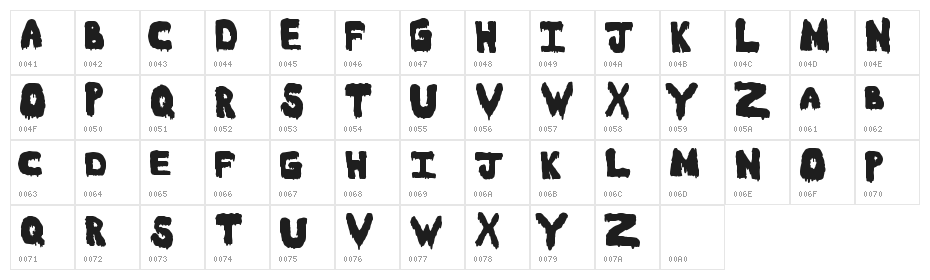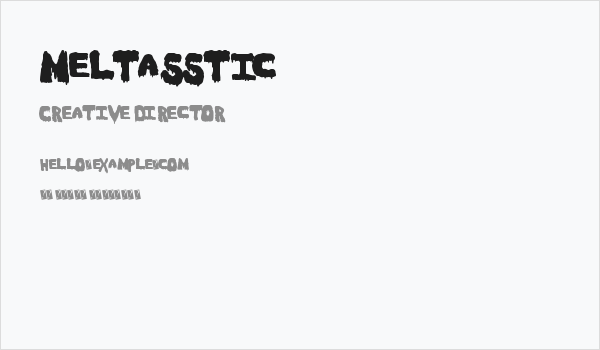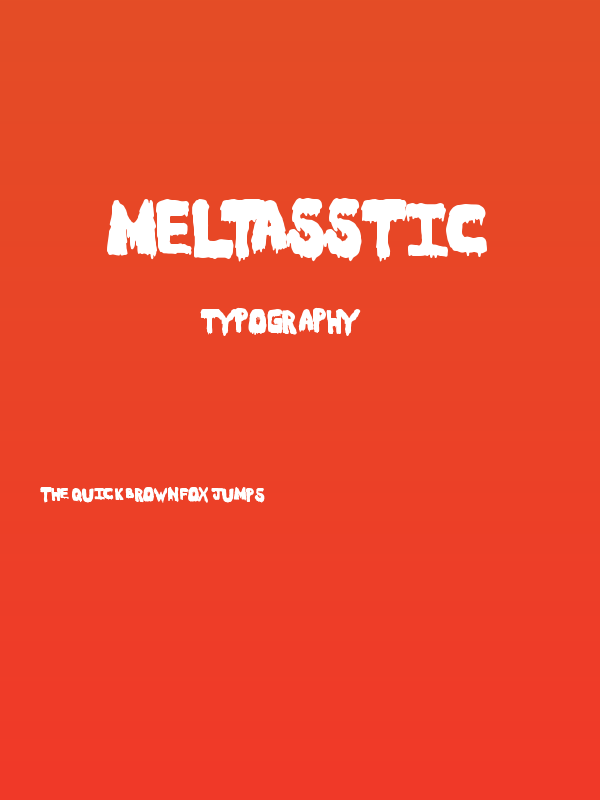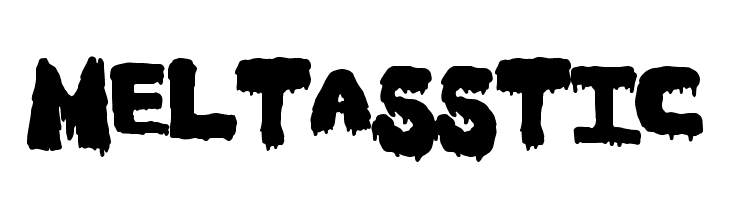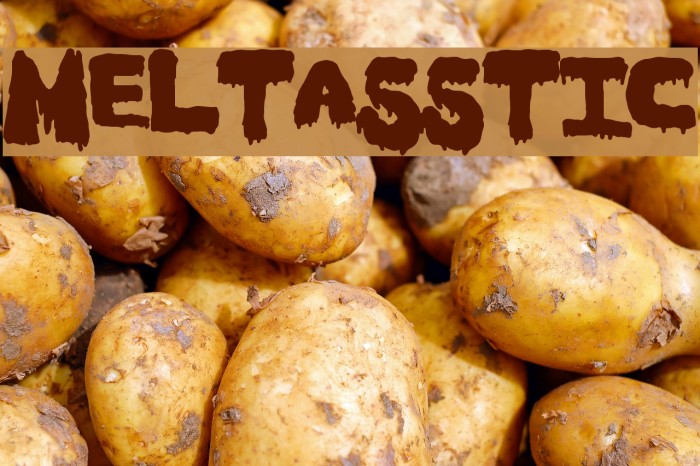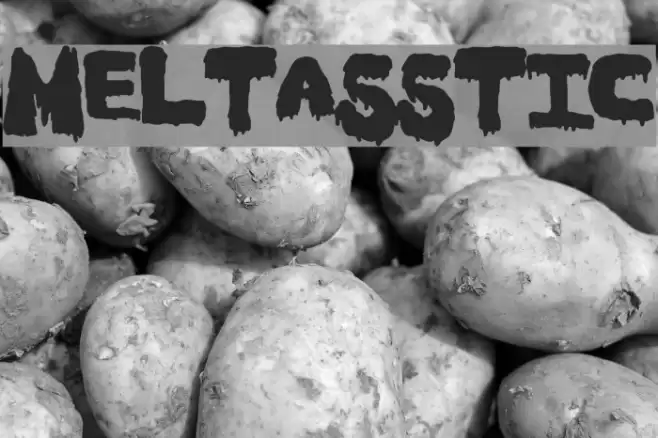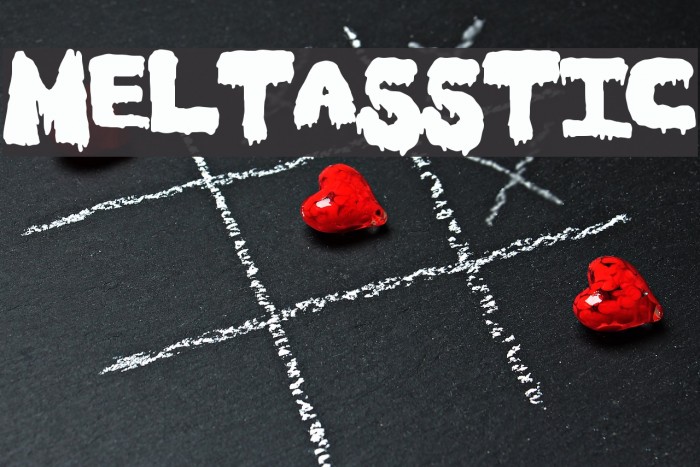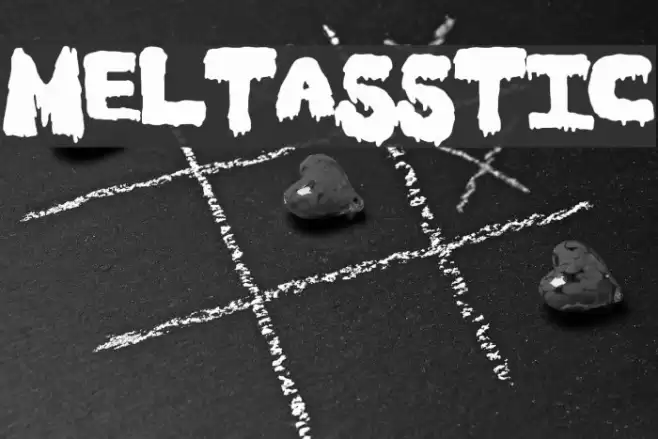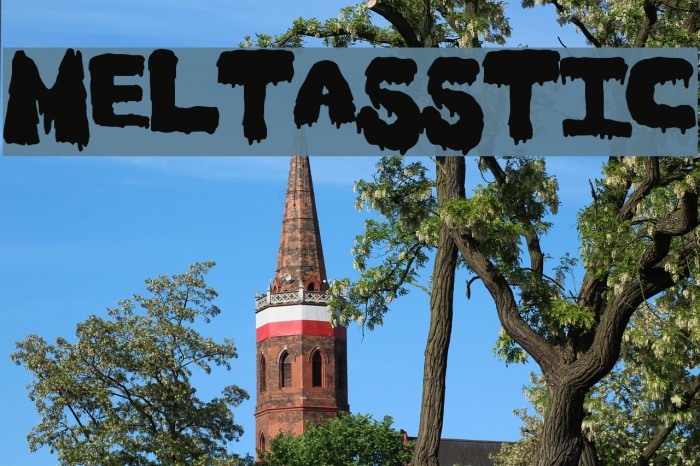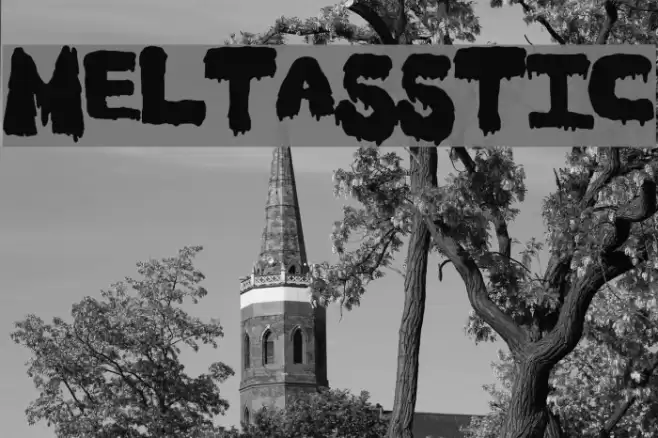
Meltasstic Font
| Caz de utilizare | Headlines, Posters, Logos |
| Proiecte propuse | Ideal for Halloween-themed graphics, horror movie posters, edgy branding, or any project needing a dramatic and unique typeface. |